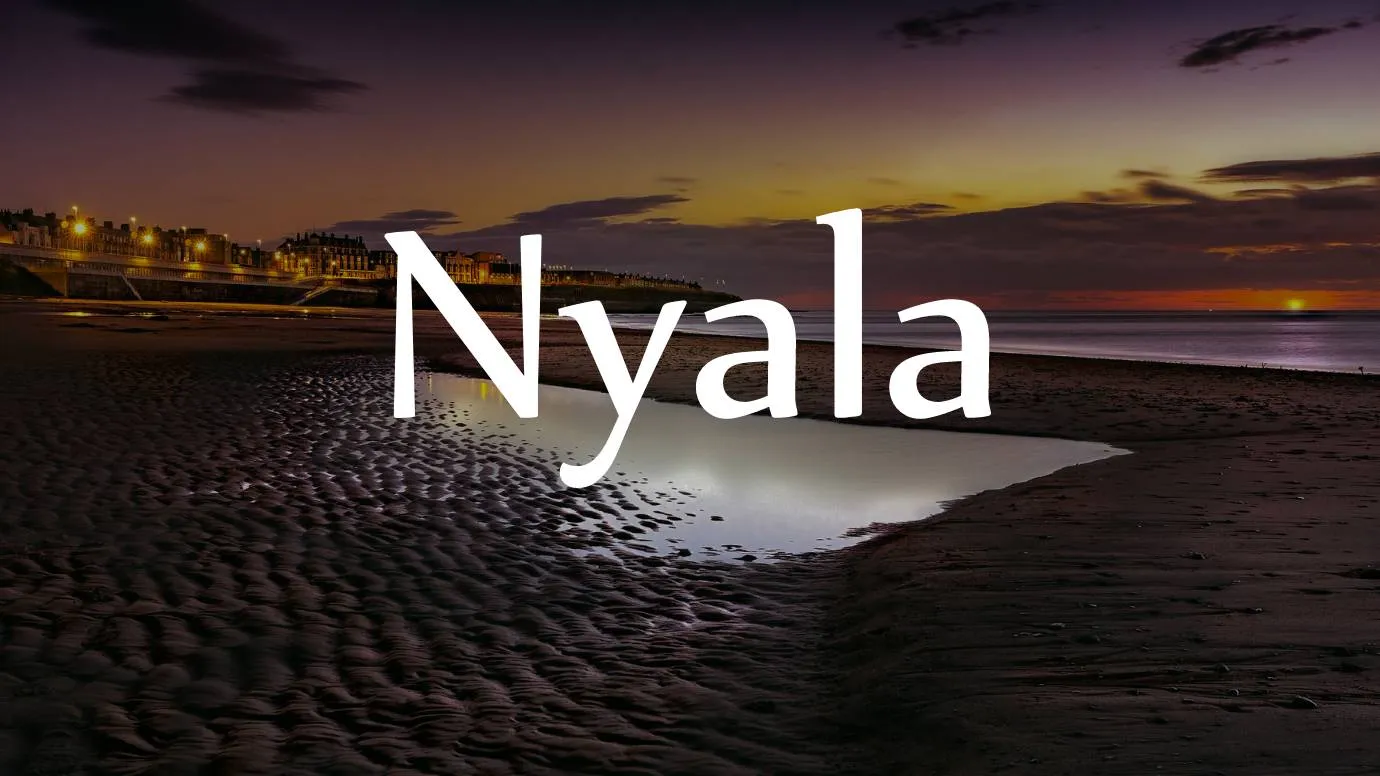
Nyala Font Family, distinguished by its one-of-a-kind design, draws its name from the renowned Nyala mountain (Tragelaphus Buxtoni), a variety of African antelope indigenous to Ethiopia’s highlands. Created by John Hudson, this font was released in 2003 under the auspices of Microsoft.
NameNyala Font
DesignerJohn Hudson, Geraldine Wade
FoundryMicrosoft
StyleDisplay
Date Released2003